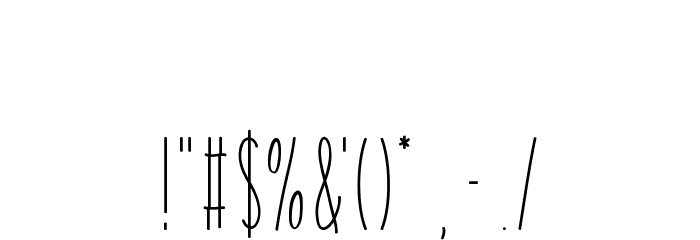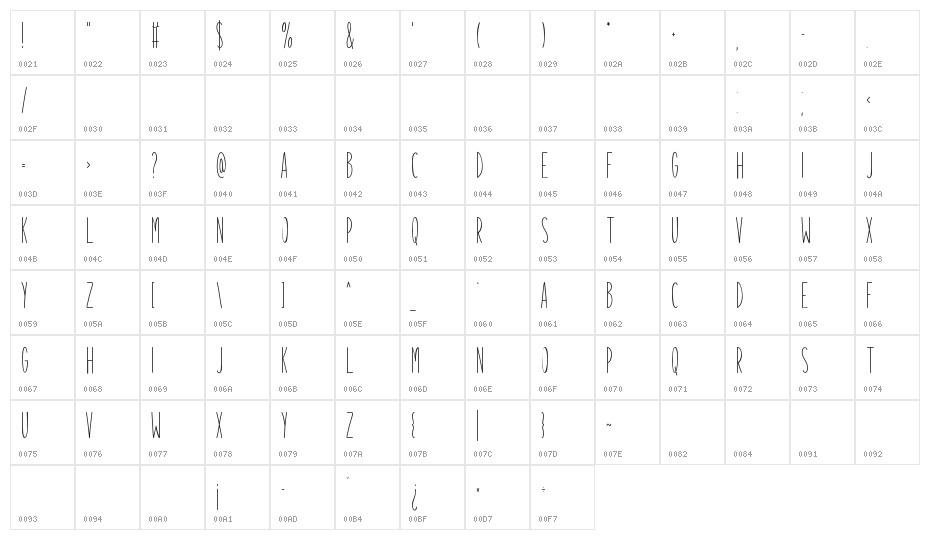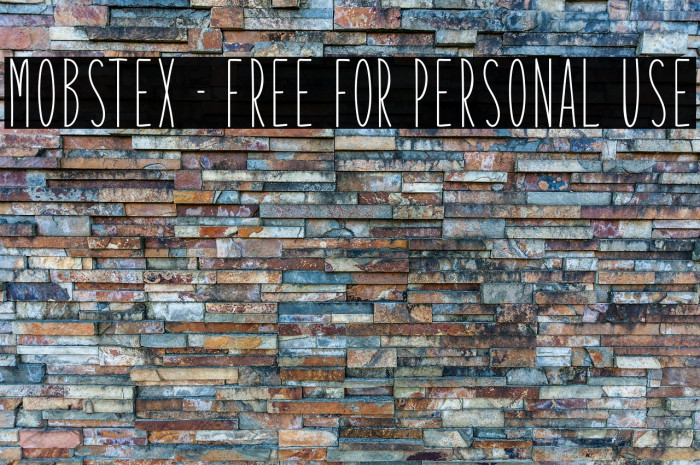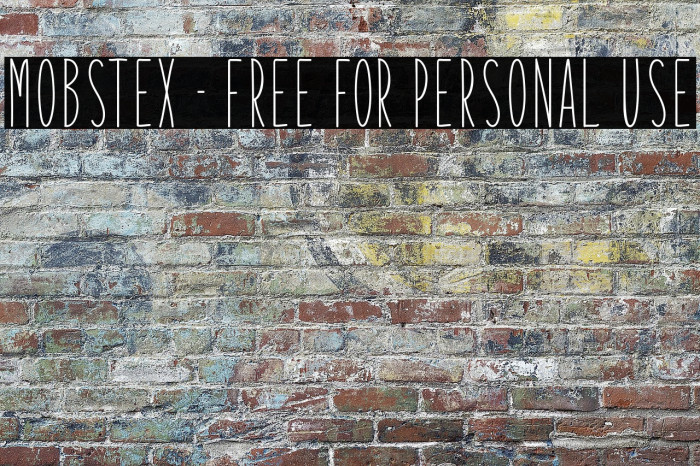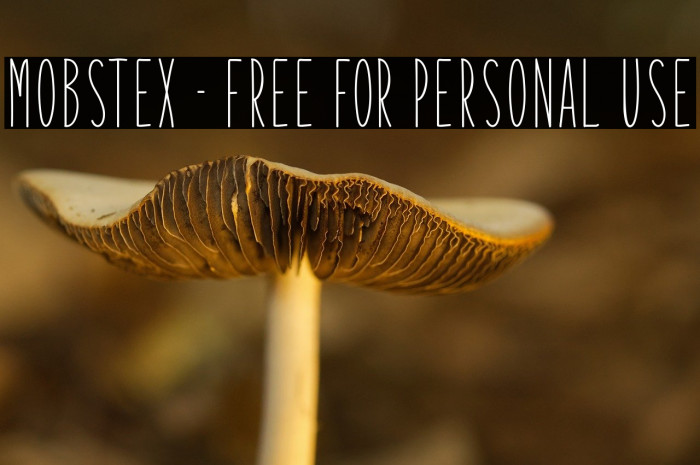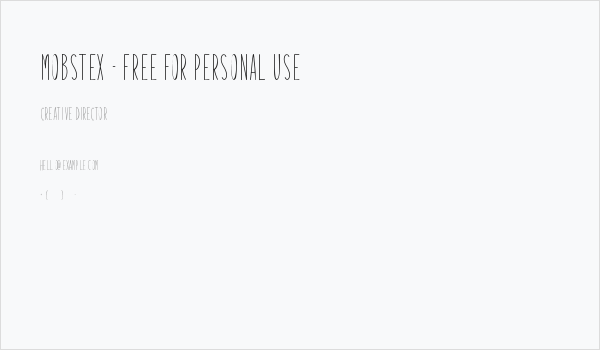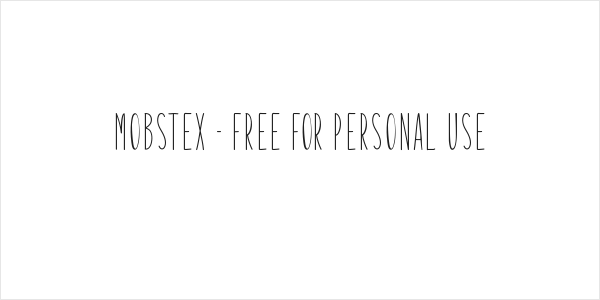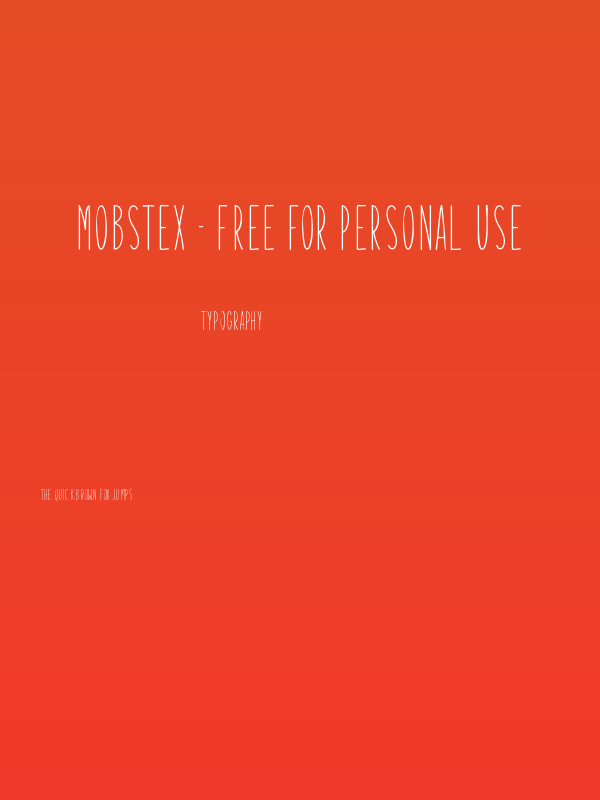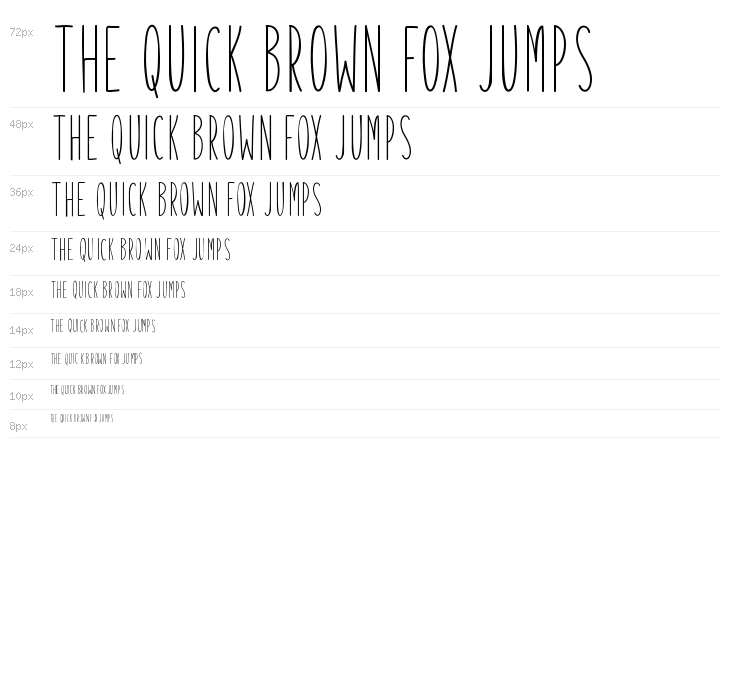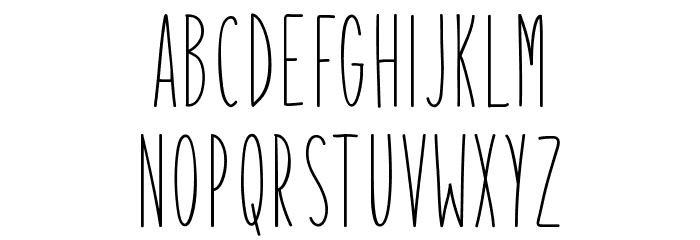
Mobstex - Free For Personal Use Font
Mobstex - Free For Personal Use Description
This font features a tall, narrow design with clean, straight lines and minimal curves, giving it a modern and sleek appearance. The characters are uniformly spaced, providing a consistent and orderly look. The uppercase and lowercase letters maintain a similar height, enhancing the font's uniformity. The numerals and special characters are designed to match the overall style, ensuring cohesion across all text elements. Its simplicity and elegance make it versatile for various design applications.
| Proposed Projects | Ideal for minimalist branding, modern posters, sleek website headers, and contemporary product packaging. |